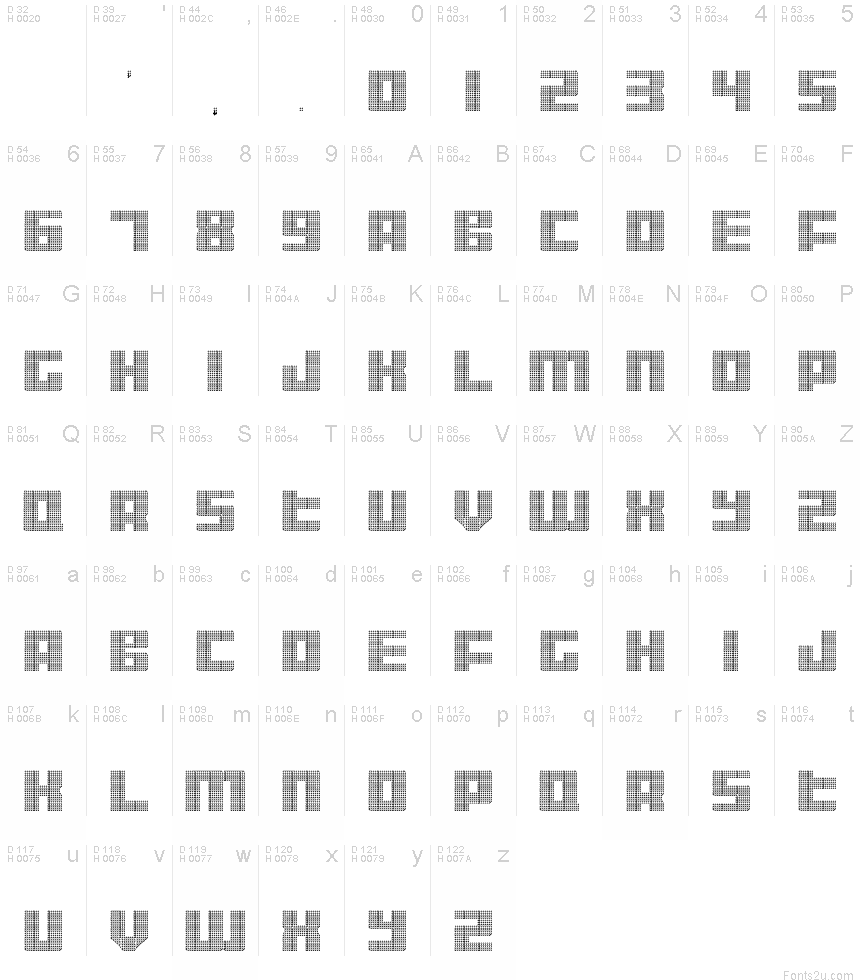
Display Gothic L by Wolf Lambert is a free techno display font based on lldaddy's i-Ching design. Broad, squared capitals carry a dense pattern of tiny diagonal cuts that makes each stroke shimmer like a mechanical screen, and blunt corners with narrow inner spaces keep the silhouette compact and distinctly industrial.
Experimental electronics brands could turn its coded surface into logos, product packaging, and event posters. Game interfaces are another convincing setting. The repeating marks can pick up circuit diagrams, screen interference, or angular illustration, so the type becomes an active part of the imagery rather than a neutral caption.